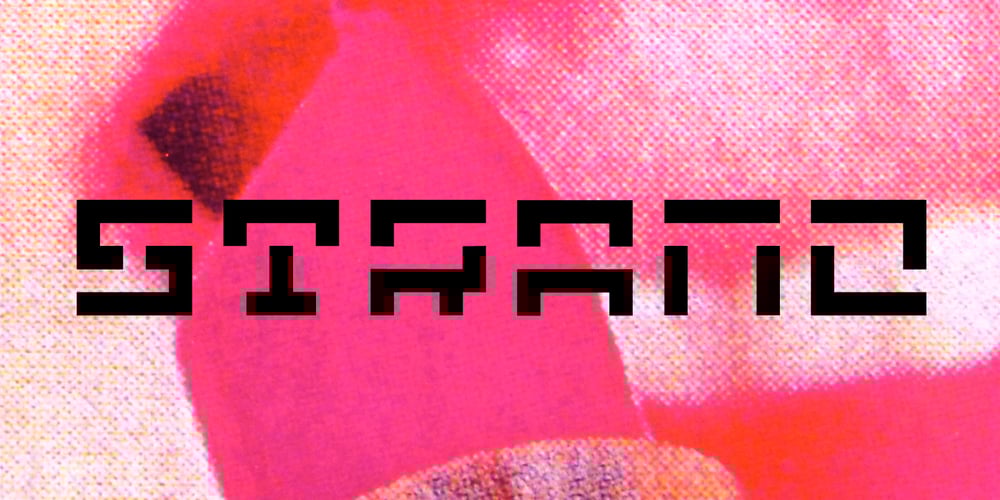
AT Move Strano Font Family was designed by André Toet, Jasper Nijssen and published by André Toet Design. AT Move Strano contains 1 styles and family package options. STRANO Like the name indicates it’s a strange typeface. Just capitals (including punctuation marks and numbers), composed from early sketches for a corporate identity in 2005 by André Toet. The complete font was restyled and translated to a Monospaced version. It’s a quite versatile font: it can be used in a lot of different cases, not only in print but also in architecture and street furniture. Think about lettering on benches, bridges, buildings. Concept/Art Direction/Design: André Toet © 2017